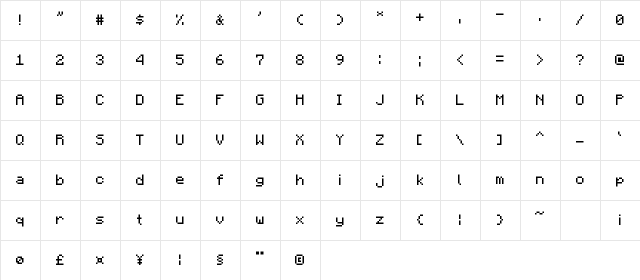
OpenMine Medium
Design Context for OpenMine Typeface
OpenMine offers clean, dependable letterforms without strong stylistic allegiance, making it a practical choice for designers who need flexibility.
Pro Tip: Use OpenMine in both headline and body roles to test its range before committing to a single application.